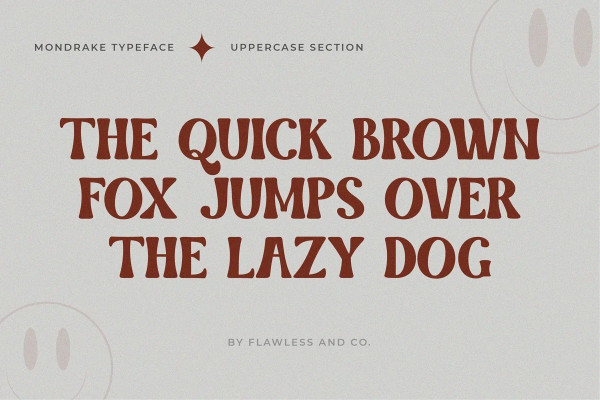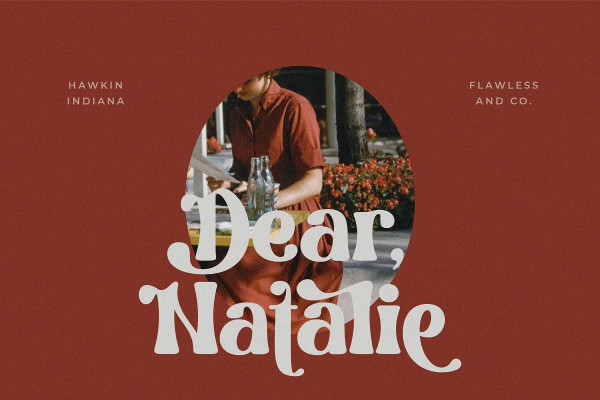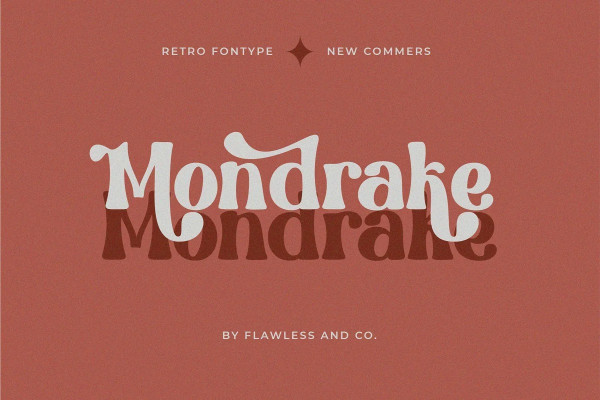
MONDRAKE TYPEFACE
Mondrake Typeface – Retro Font, our latest creation, modern serif with various alternates and ligatures, multilingual support, an updated blend of bohemian style, suitable for branding, business, logos, magazines, and others